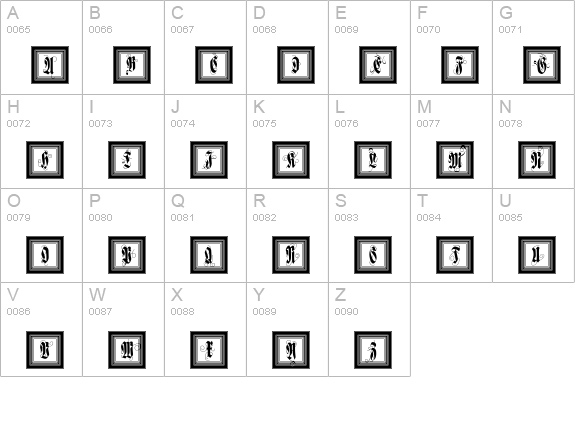
FramedFraxCaps Font Details
FramedFraxCaps is a modern and stylish font that effortlessly combines elegance with a touch of playfulness. This unique typeface features framed letters with intricate details that make it stand out from the crowd. The capital letters are bold and eye-catching, perfect for making a statement in your designs. What sets FramedFraxCaps apart is its versatility - it can be used for a wide range of projects, from branding to social media graphics to invitations. Whether you're looking to add a touch of sophistication to your designs or want to create a fun and quirky look, this font has got you covered. And the best part? FramedFraxCaps is completely free to download at FontsMarket.com. Yes, you read that right - you can get your hands on this stunning font without spending a dime. So why wait? Add FramedFraxCaps to your font collection today and let your creativity soar.